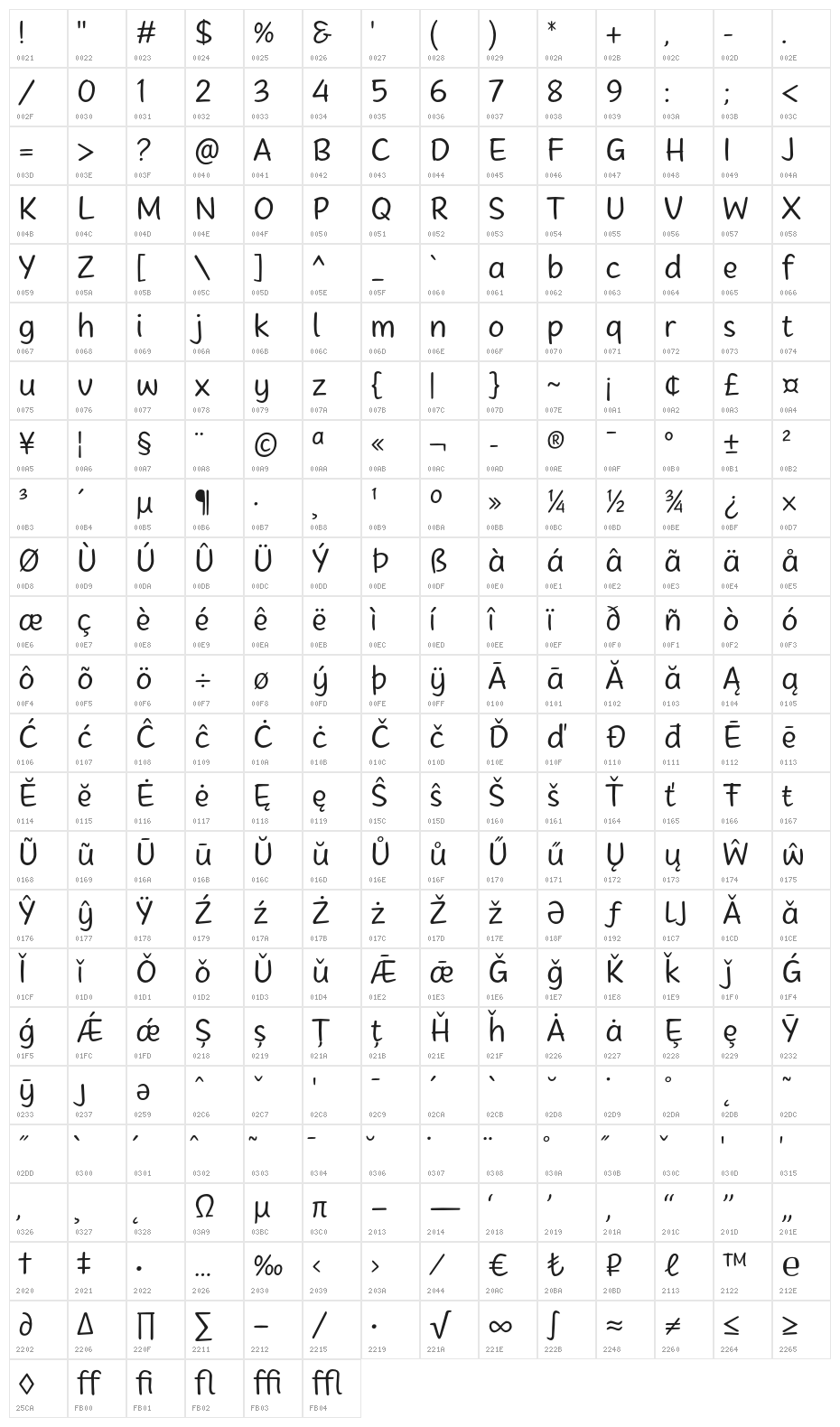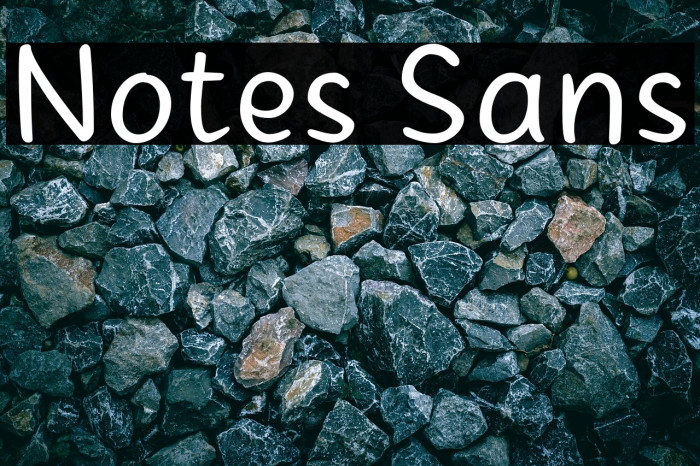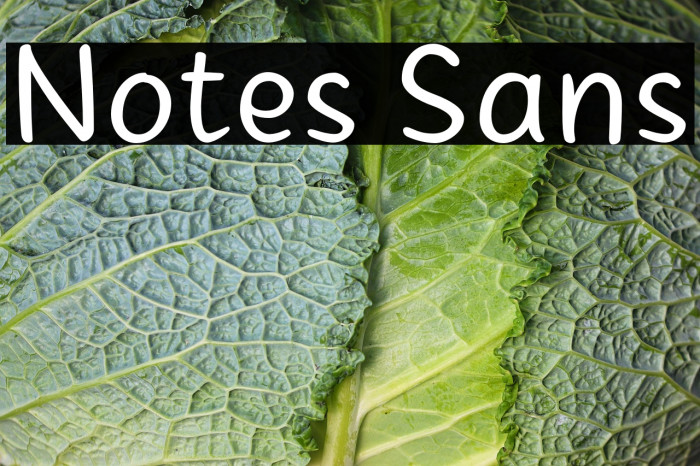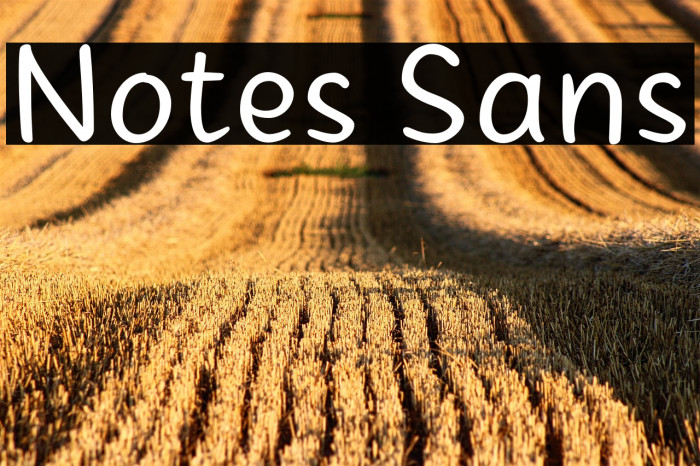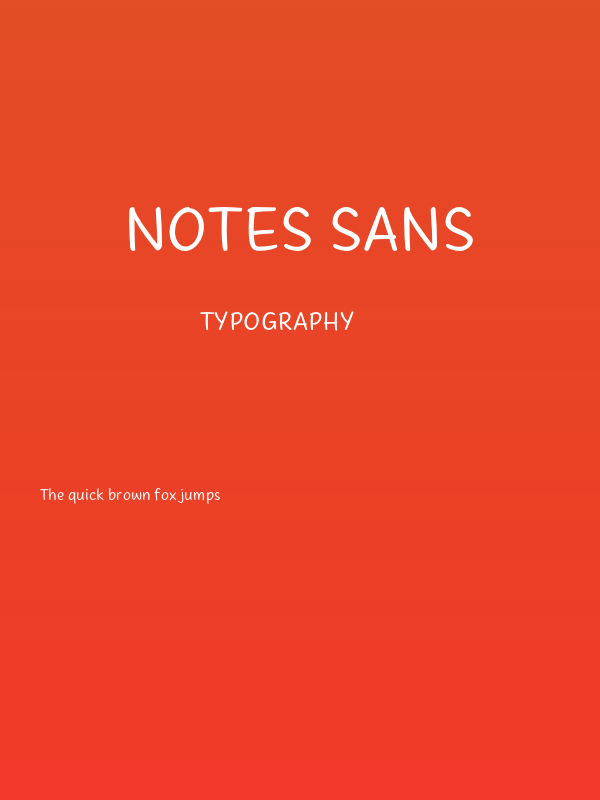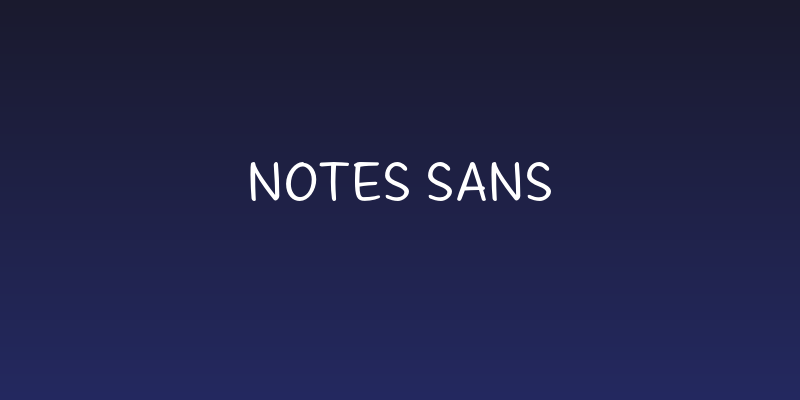
Notes Sans Font
Notes Sans Description
This font features a playful and casual handwritten style, characterized by its rounded and smooth letterforms. The strokes are consistent in width, giving it a uniform appearance that is easy on the eyes. The uppercase and lowercase letters maintain a friendly and approachable aesthetic, making it suitable for informal and creative projects. The numerals and special characters are designed to match the overall style, ensuring a cohesive look across all text elements. Its simplicity and readability make it versatile for various applications.
| Proposed Projects | Ideal for greeting cards, children's books, casual branding, and social media graphics. |